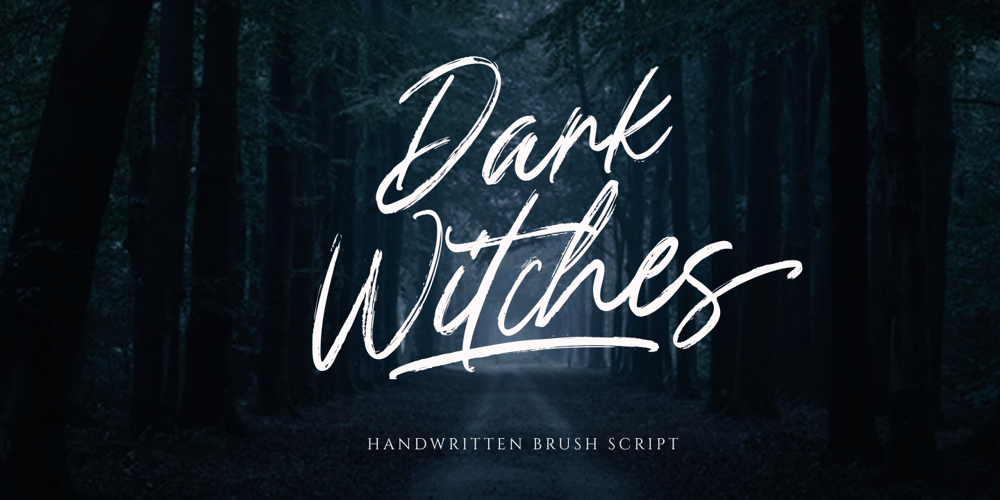
Dark Witches Font Family was designed by Gustian Agung Asprilla and published by Rillatype. Dark Witches contains 1 styles and family package options. Introducing, Dark Witches a handwritten brush font. dark witches is one kind of a font that is made for you who are looking for a handwritten textured brush font. this font work perfectly for branding, packaging, advertising, headline, logotype, etc.Features : numbers and punctuation multilingual ligatures alternates swash PUA encoded Thank You!